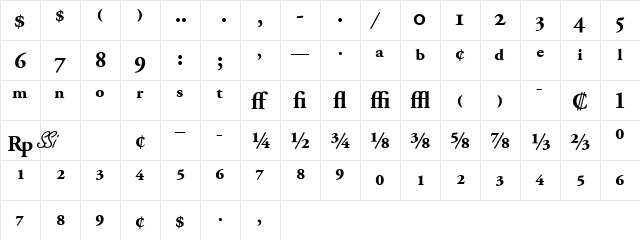
Garamond Pro Black SSi Bold Font Preview
Garamond Pro Black SSi Bold
Garamond Pro Black SSi Bold Font Details
Design Context for Garamond Pro Black SSi Typeface
Garamond Pro Black SSi takes a measured approach to typography — its balanced proportions and neutral character make it a reliable workhorse for both digital and print work. Its bold stroke weight gives it real presence on the page.